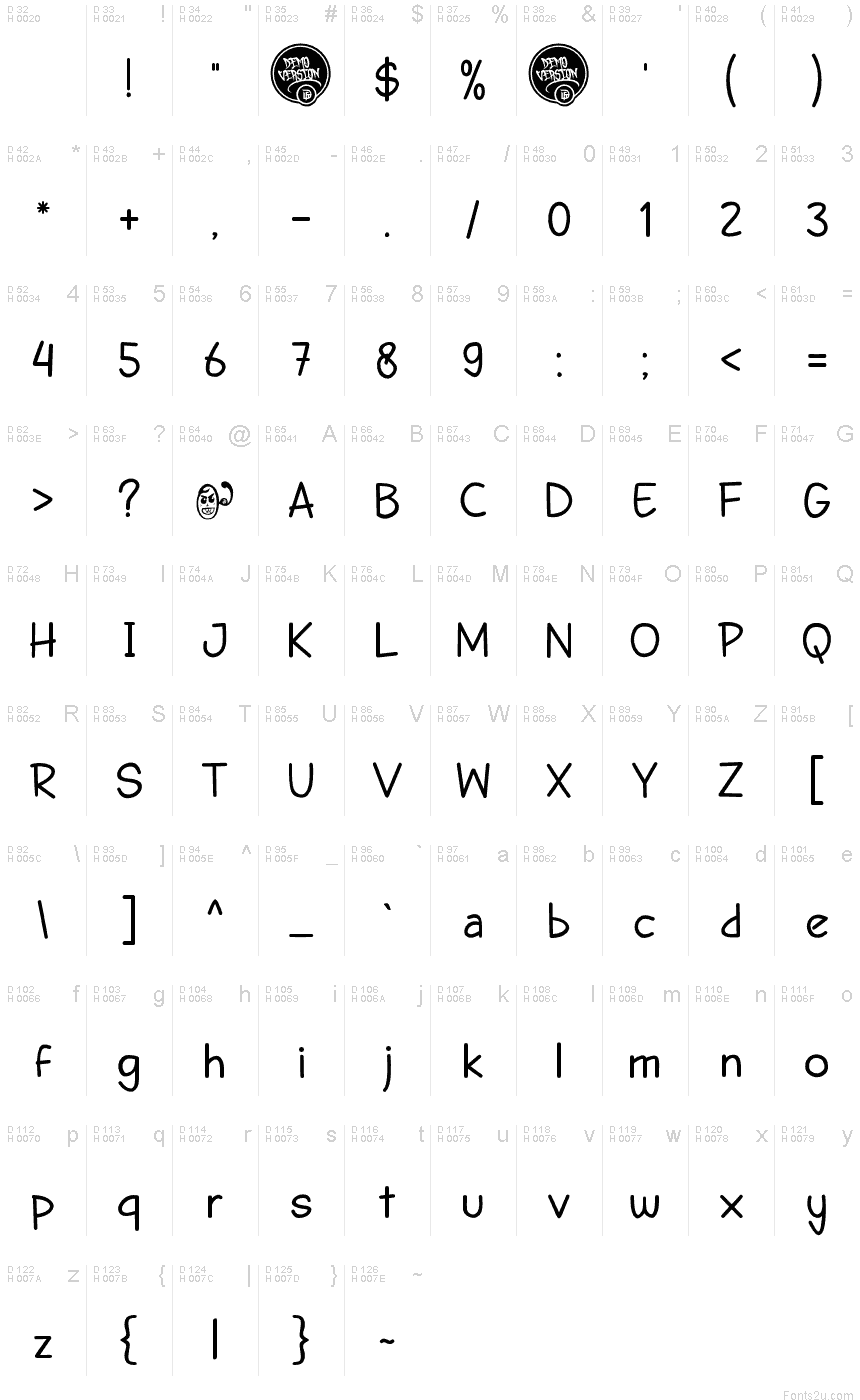
DHF Semangat 2012 by Dexsar Harry Anugrah is a free comic display font with tall, loosely drawn letters and a lively uneven baseline. Rounded ends and gently changing stroke widths make the forms look sketched with a marker rather than mechanically polished.
Lighthearted stories are its natural territory. The lettering suits children's book covers, classroom posters, and animated title cards, where its open shapes keep the message cheerful and direct. Those uses share an informal, hand-drawn setting that lets the type become part of the illustration.